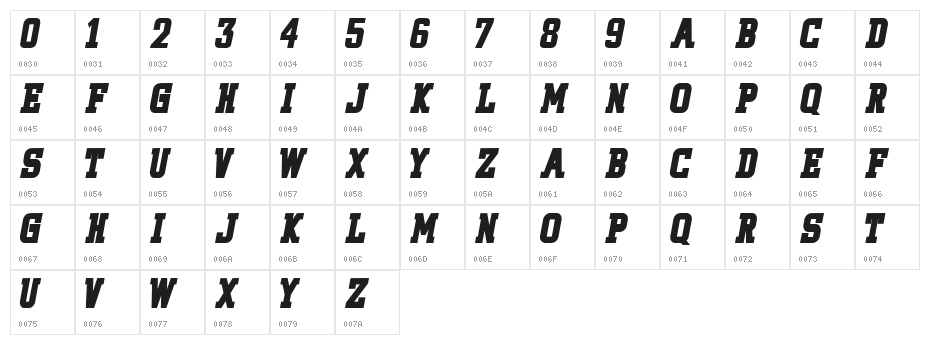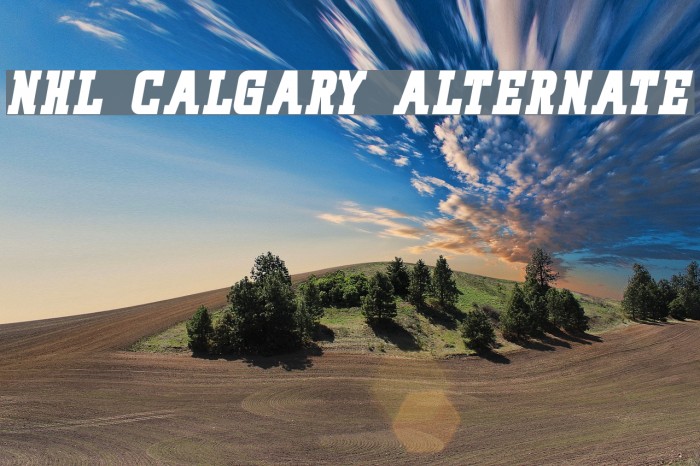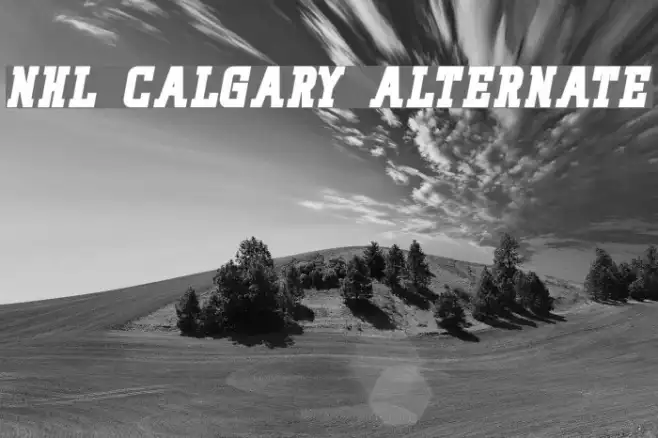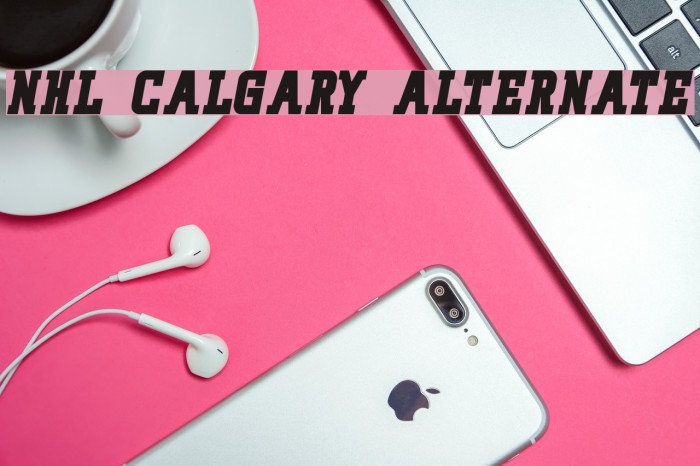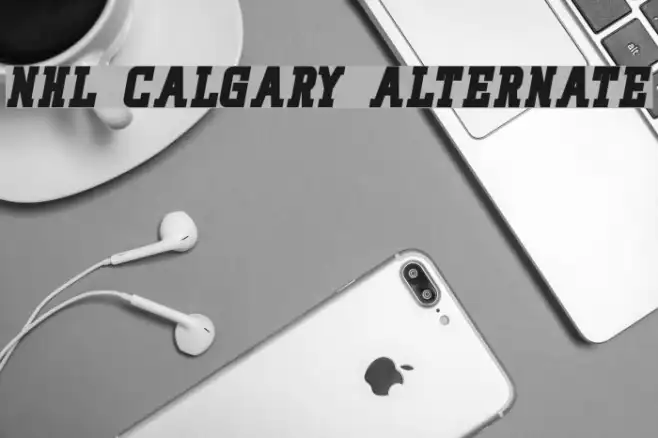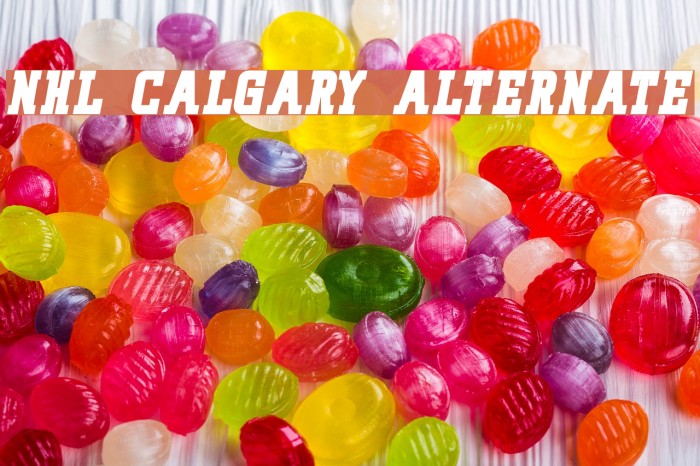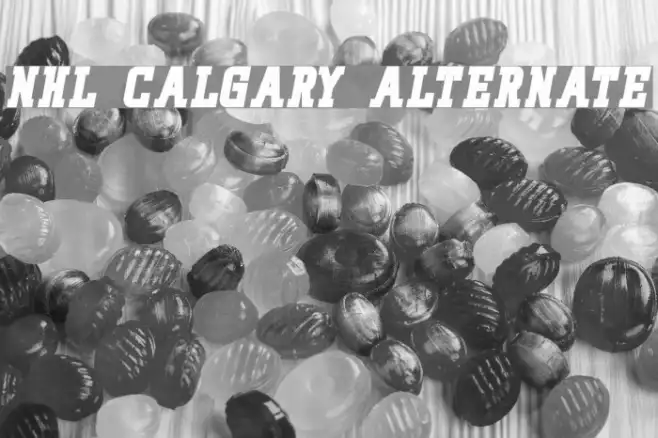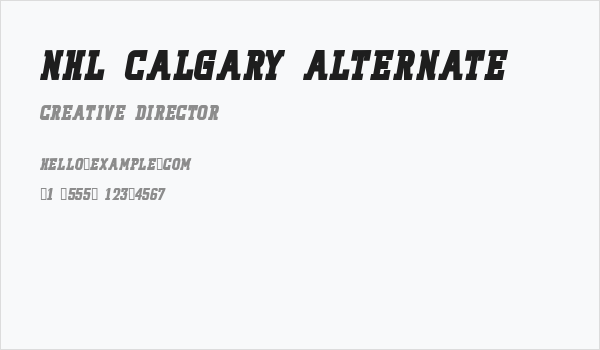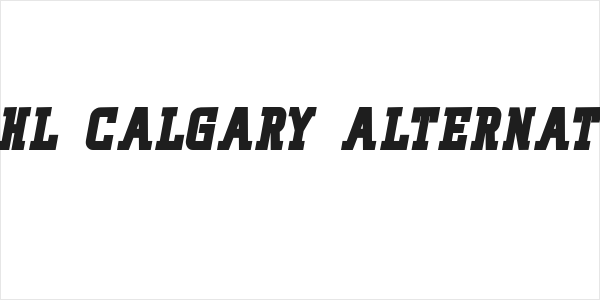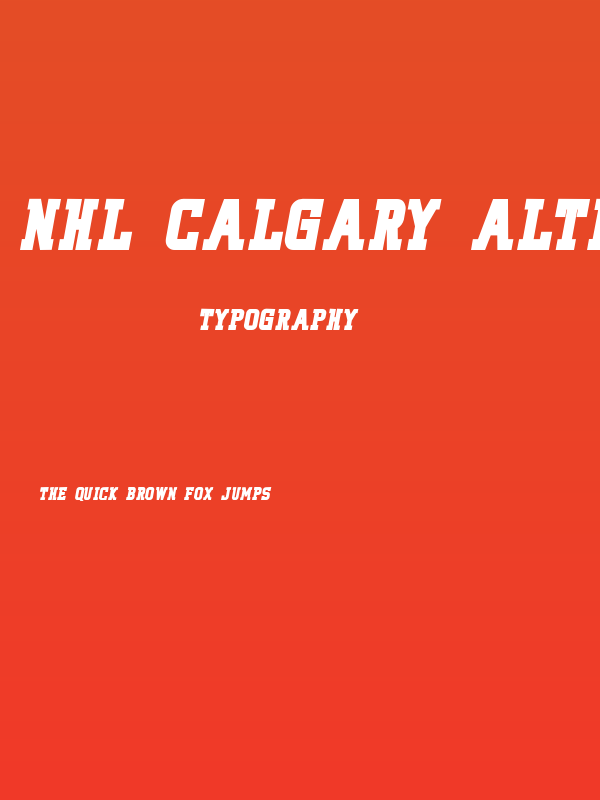
NHL Calgary Alternate Font
NHL Calgary Alternate Description
This font features a bold and dynamic style with strong geometric shapes and a slightly condensed form. The uppercase letters are particularly striking, with sharp angles and a sense of movement that suggests speed and power. The numbers follow the same bold design, making them highly legible and impactful. The font lacks lowercase letters and special characters, focusing on a robust and assertive appearance. Its design is reminiscent of sports team branding, conveying energy and strength.